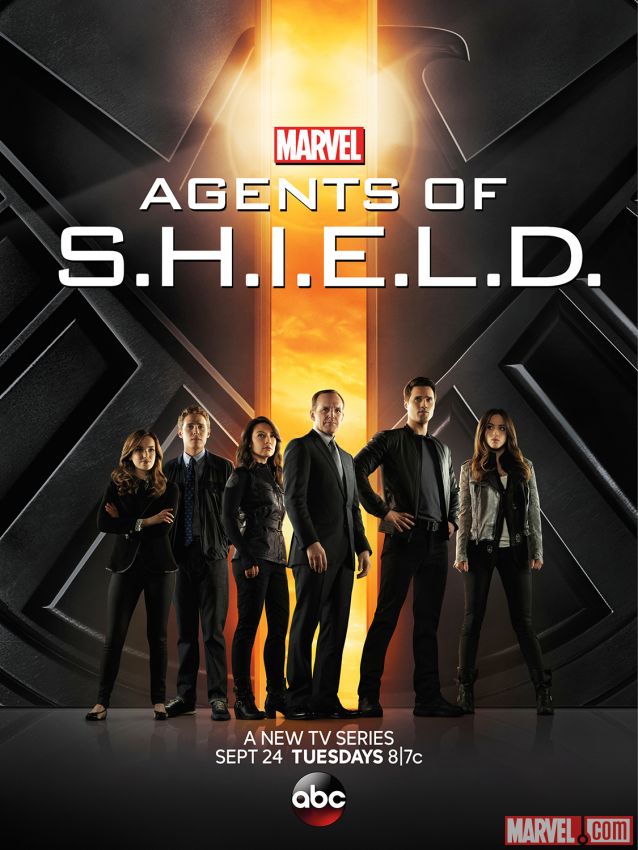
Agents of S.H.I.E.L.D. Font
ActionAgents of S.H.I.E.L.D. is an American television series created for ABC based on the organization S.H.I.E.L.D. a fictional peacekeeping and spy agency dealing with paranormal and superhuman threats.
The film's poster uses Bank Gothic Medium, a 1930s square sans-serif typeface designed by Morris Fuller Benton for the American Type Founders (ATF). You can preview and view more details about the Bank Gothic font here.